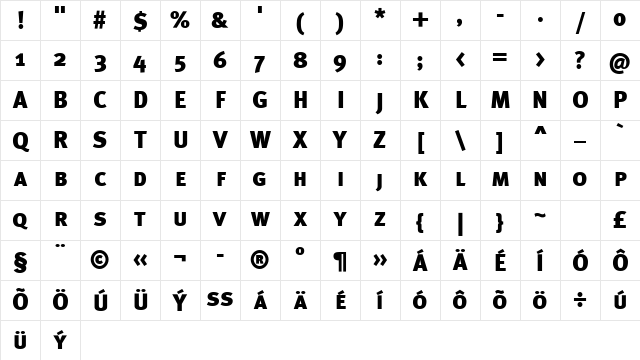
Complete MetaBlackCE Black glyph index. Displaying only characters natively supported by MetaBlackCE Black font.
MetaBlackCE is a composed and adaptable typeface that performs quietly and consistently across a wide range of design contexts.
Who designed the MetaBlackCE Black font?
This font was published by Erik Spiekermann, . Published by FontShop International for FontFont library. Meta is a trademark of FSI, Fonts and Software GmbH. Created by Erik Spiekermann, Ole Schaefer, Dmitri Sorokin. Vendor URL: http://www.fontfont.de. Check the technical specs section for copyright and designer details.